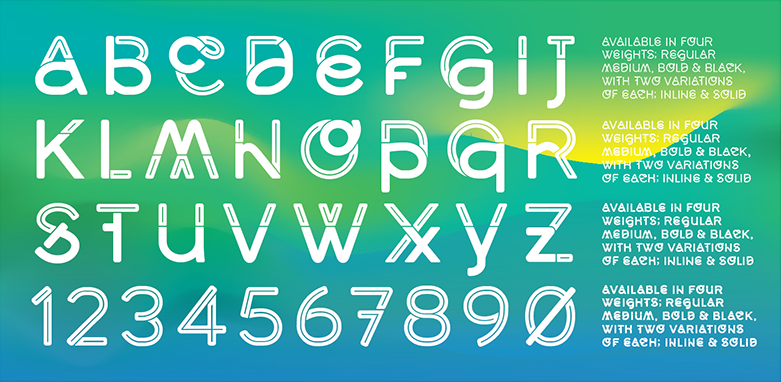
Middlecase From font and graphic designer Morice Kastoun, Middlecase is an experimental typeface that fuses both upper & lowercase letterforms into one unique character set. It is a completely radical idea that blurs the boundaries of font case classification, and what is possible in font design. This font is sure to stand-out from the crowd! Middlecase comes in 4 weights: Regular, Medium, Bold & Black, with two variations of each; Inline & Solid. Each font comes with over 30 icons within the glyph set. Morice works as a Creative Director living in Melbourne Australia. |